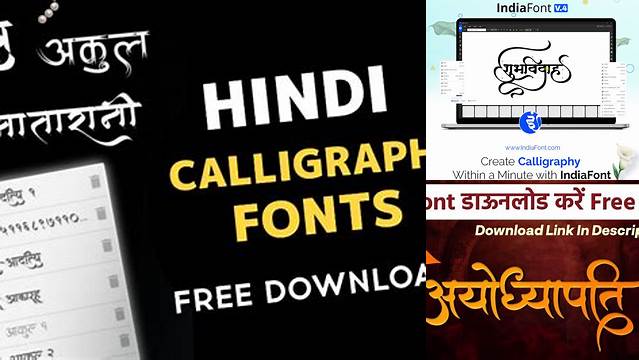
Create Stunning Hindi Calligraphy Fonts Free Online
Hey guys! Ever wanted to jazz up your projects with some beautiful Hindi calligraphy? Well, you're in luck! This article is all about how you can use a Hindi calligraphy fonts online generator free to create some amazing designs. We'll dive into the world of online tools, explore different font styles, and give you the lowdown on how to make your Hindi text pop. So, buckle up, and let's get started! Get ready to unleash your creativity and add a touch of elegance to your work with stunning Hindi calligraphy, all without spending a dime. It's easier than you think, and the results can be truly captivating. Let's explore the exciting possibilities of crafting visually appealing Hindi text!
H2: Introduction to Hindi Calligraphy Fonts and Their Significance
Alright, let's kick things off with a basic intro. What exactly is Hindi calligraphy fonts online generator free, and why does it even matter? Simply put, it's the art of beautiful writing in the Hindi script. Think of it as the fancy, artistic version of your everyday handwriting or typed text. The significance? Well, it's huge! Calligraphy adds a touch of sophistication, personality, and cultural richness to any design. Whether it's a wedding invitation, a poster, or even a simple greeting card, using calligraphy can make your message stand out and leave a lasting impression. You'll find that the elegance of Hindi calligraphy can beautifully capture the essence of Indian culture. Imagine the impact of using these unique and expressive fonts! Using a Hindi calligraphy fonts online generator free opens up a world of creative opportunities, allowing you to express your message with style and grace. The ability to produce visually striking Hindi text is a valuable asset. These fonts are not just about writing; they are about art, expression, and preserving cultural heritage. It is a testament to the beauty and significance of the language.
Calligraphy fonts add a unique touch to any project. They can be the difference between a good design and a great one. Think of them as the cherry on top of a beautiful sundae!
H2: Top Free Online Generators for Hindi Calligraphy Fonts
Okay, so you're pumped to start creating. Awesome! Now, let's talk tools. There are tons of Hindi calligraphy fonts online generator free options out there, but let's highlight a few of the best. When choosing a generator, look for features like a wide variety of font styles, customization options (like size and color), and an easy-to-use interface. Some popular choices include websites that offer a straightforward text-to-calligraphy conversion. These sites often provide a preview of the text, allowing you to see exactly how your Hindi words will look in different fonts. Explore various generators, experiment with different styles, and find the one that suits your needs the best. The goal is to find a tool that empowers you to unleash your creativity without any cost. The beauty of these generators is the instant gratification. With just a few clicks, you can see your words transformed into a work of art. Take advantage of these resources to enhance your designs with stunning Hindi calligraphy. It’s all about finding the perfect fit for your project and letting your creativity shine! Experiment, play around, and see what works best for you. Don't be afraid to try out several different platforms before finding the one that really clicks.
H3: Variety of Font Styles and Customization Options
Variety is the spice of life, right? When it comes to Hindi calligraphy fonts online generator free, the more font styles available, the better! Look for generators that offer a wide range of options, from traditional scripts to more modern and artistic designs. This will give you the flexibility to match your calligraphy to the specific style of your project. In addition to font styles, customization options are also important. The ability to adjust font size, color, and spacing can greatly enhance your design. Some generators even offer special effects, such as shadows, outlines, and textures, to give your text a unique touch. Customization allows you to create a design that truly reflects your vision. By exploring different font styles and customization options, you can create a design that is both visually stunning and perfectly suited to your needs. Don't be afraid to experiment and discover what works best for you.
H2: Step-by-Step Guide: Generating Hindi Calligraphy Online
Alright, time for a little hands-on action! Generating Hindi calligraphy fonts online generator free is generally a piece of cake. First, find a reliable online generator (we'll help you with that in a sec!). Next, enter your Hindi text. Many generators will provide a text box where you can simply type or paste your words. Once your text is entered, select your desired font from the available options. You can often preview the text in real-time to see how it will look. After choosing your font, explore the customization options (size, color, etc.). Adjust the settings until you are happy with the design. Finally, download your finished creation. Most generators allow you to download your calligraphy in a popular image format (like PNG or JPG). Follow these steps, and you'll be creating beautiful Hindi calligraphy in no time. Get ready to impress your friends, family, or clients with your stunning designs.
H3: Inputting Hindi Text Correctly
Accuracy is key when inputting your Hindi text. Make sure to use the correct spelling and grammar to avoid any errors in your calligraphy. Some generators may support Unicode characters, allowing you to directly type in Devanagari script. If your generator doesn't support direct typing, you may need to use a Hindi typing tool or convert your text before pasting it into the generator. Double-check your text before generating your calligraphy. Errors can ruin the final outcome, so take your time to ensure that everything is accurate. With precise input, your Hindi calligraphy will be error-free and visually appealing.
H3: Selecting and Customizing Fonts
Choosing the right font can make or break your design. Browse through the available font options and select the style that best suits your project. Experiment with different fonts until you find one that resonates with your message and overall aesthetic. Once you've selected a font, take advantage of customization options to further refine your design. Adjust the size, color, and spacing to achieve the desired look. Some generators provide additional effects like shadows and outlines to add depth and visual interest. By carefully selecting and customizing your fonts, you can create a unique and captivating Hindi calligraphy design.
H3: Downloading and Using Your Calligraphy
Once you are satisfied with your design, it's time to download it. Most generators allow you to download your calligraphy in formats like PNG or JPG. PNG is often preferred for designs with transparency, while JPG is suitable for images with solid backgrounds. After downloading, you can use your Hindi calligraphy in various projects, such as invitations, posters, social media posts, and more. Make sure you understand the terms of use for any images or fonts you use. By following these steps, you can create stunning Hindi calligraphy designs and use them creatively.
H2: Conclusion: Unleash Your Creativity with Free Hindi Calligraphy
So, there you have it! You've got the lowdown on how to use Hindi calligraphy fonts online generator free to create some seriously cool designs. By mastering these tools and techniques, you'll be able to add a unique touch to your projects and make your Hindi text pop. Remember to experiment with different fonts, customization options, and design techniques. Have fun and let your creativity run wild! The world of Hindi calligraphy is open to you, so go out there and create some magic!